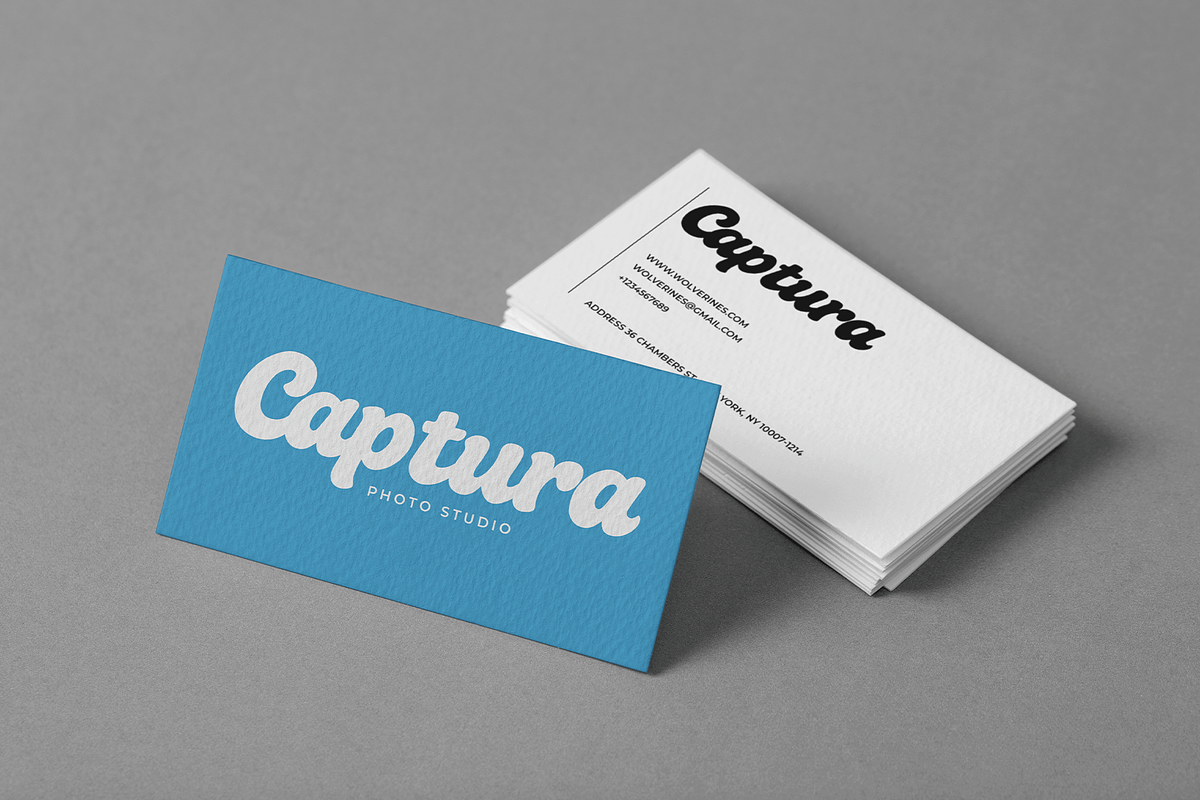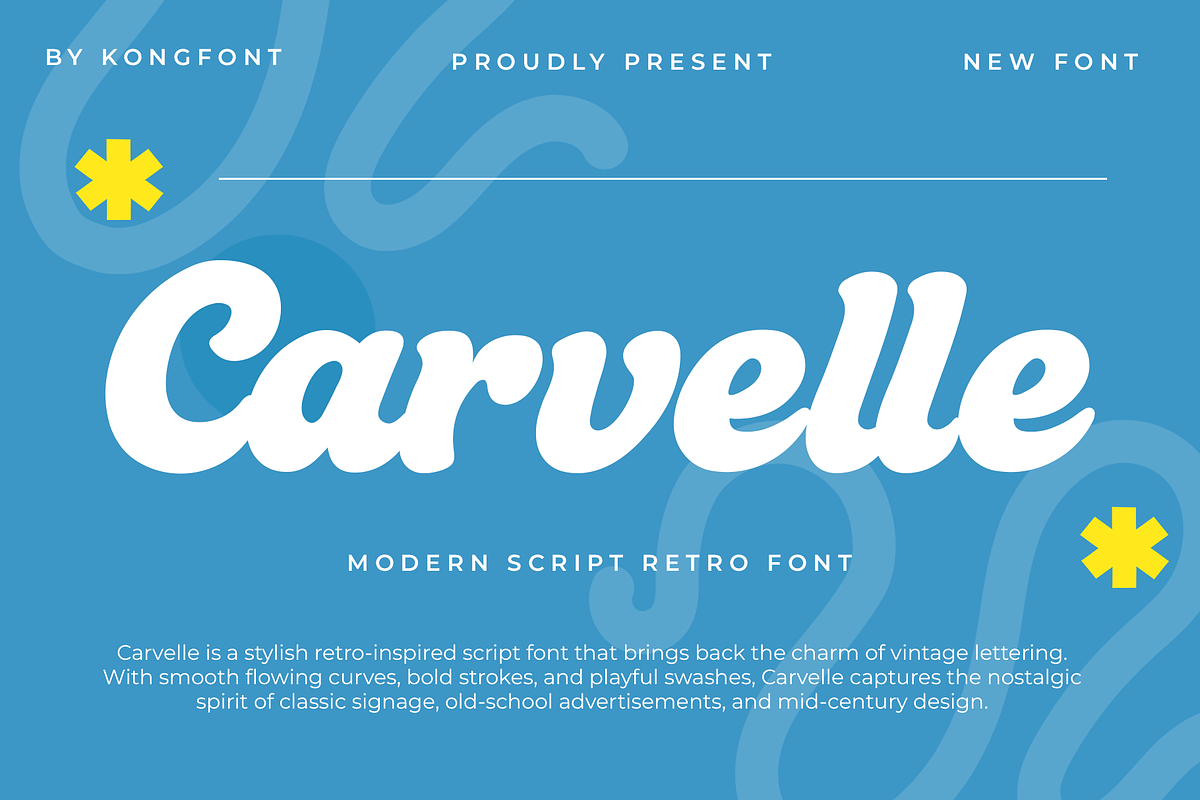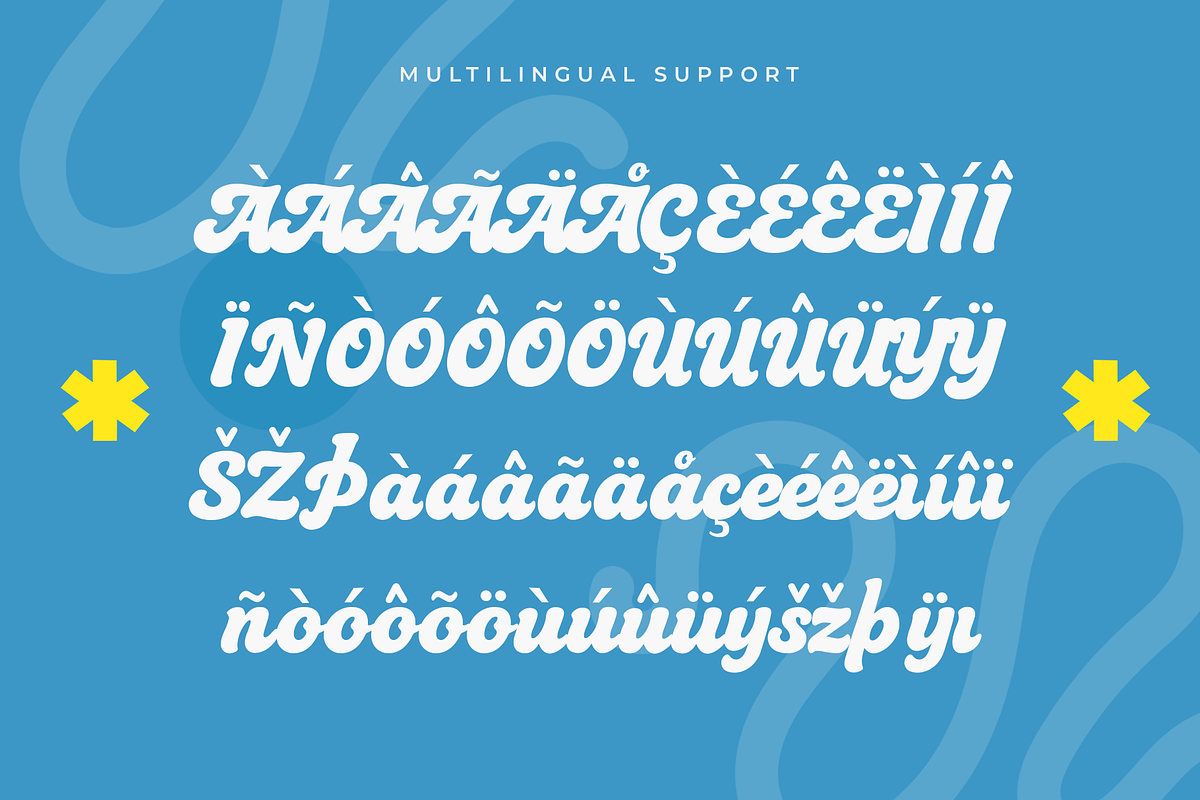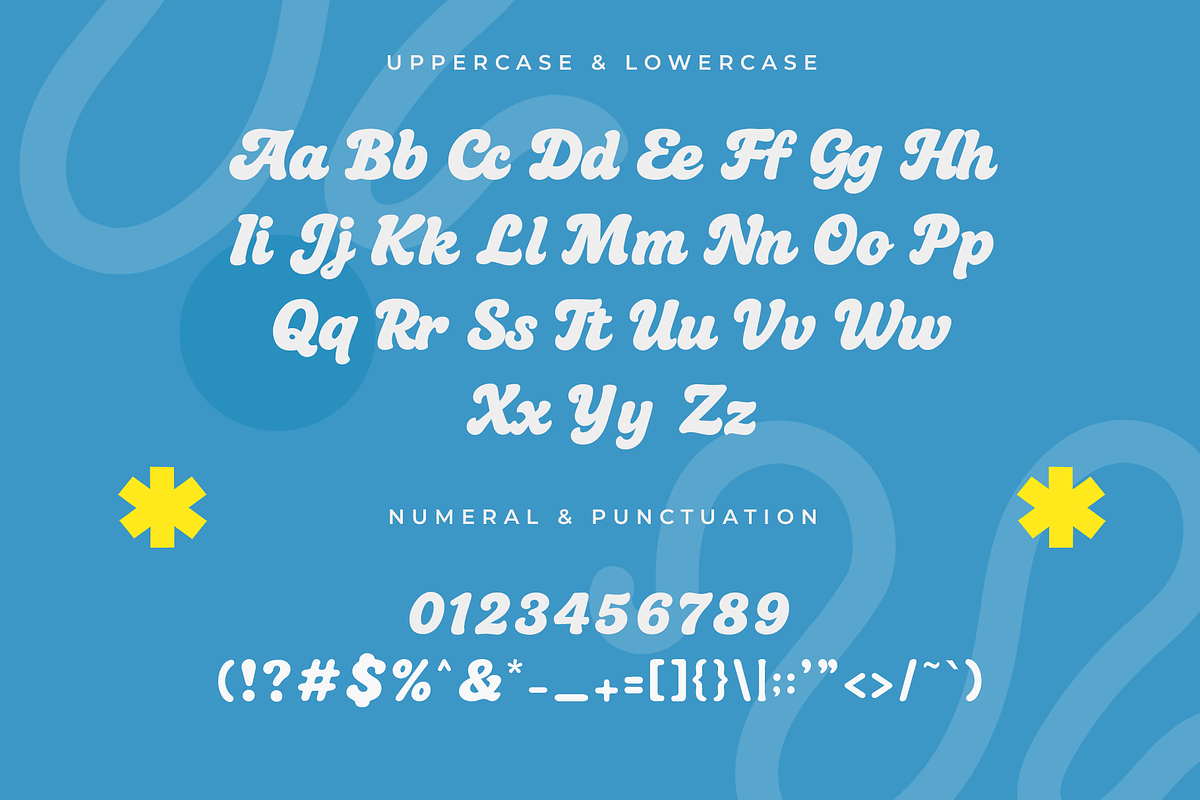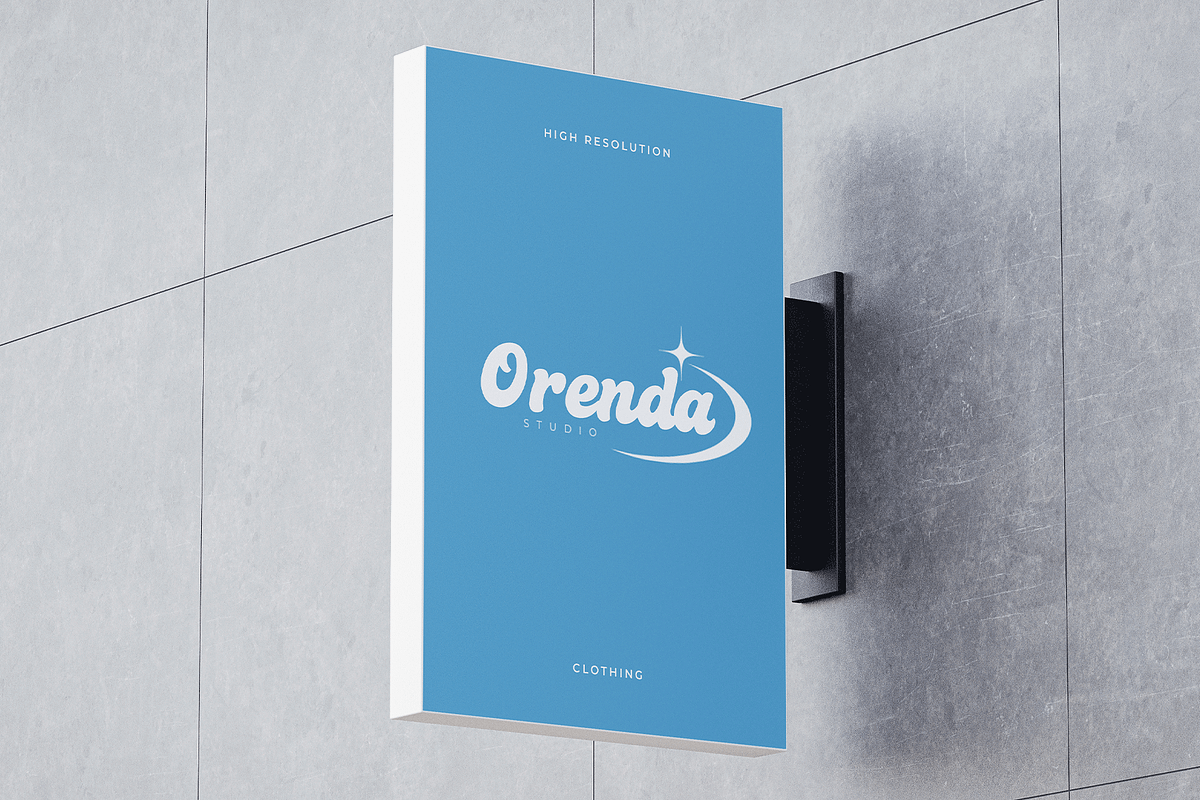
Carvelle – Modern Script Retro Font
Say hello to Carvelle, a modern script retro font that beautifully blends nostalgic charm with contemporary design. With its flowing curves and bold retro-inspired strokes, Carvelle brings a touch of vintage flair while staying stylish and versatile for today’s creative needs.
Perfect for logos, posters, packaging, invitations, and social media graphics, Carvelle captures attention with its unique script personality. Its smooth lines and retro vibe make it a great choice for designers seeking to create memorable and impactful visuals.
Packed with uppercase, lowercase, numerals, punctuation, and multilingual support, Carvelle adapts seamlessly to a wide range of projects. Whether you’re crafting retro branding, elegant lettering, or bold headlines, Carvelle delivers timeless character with modern usability.